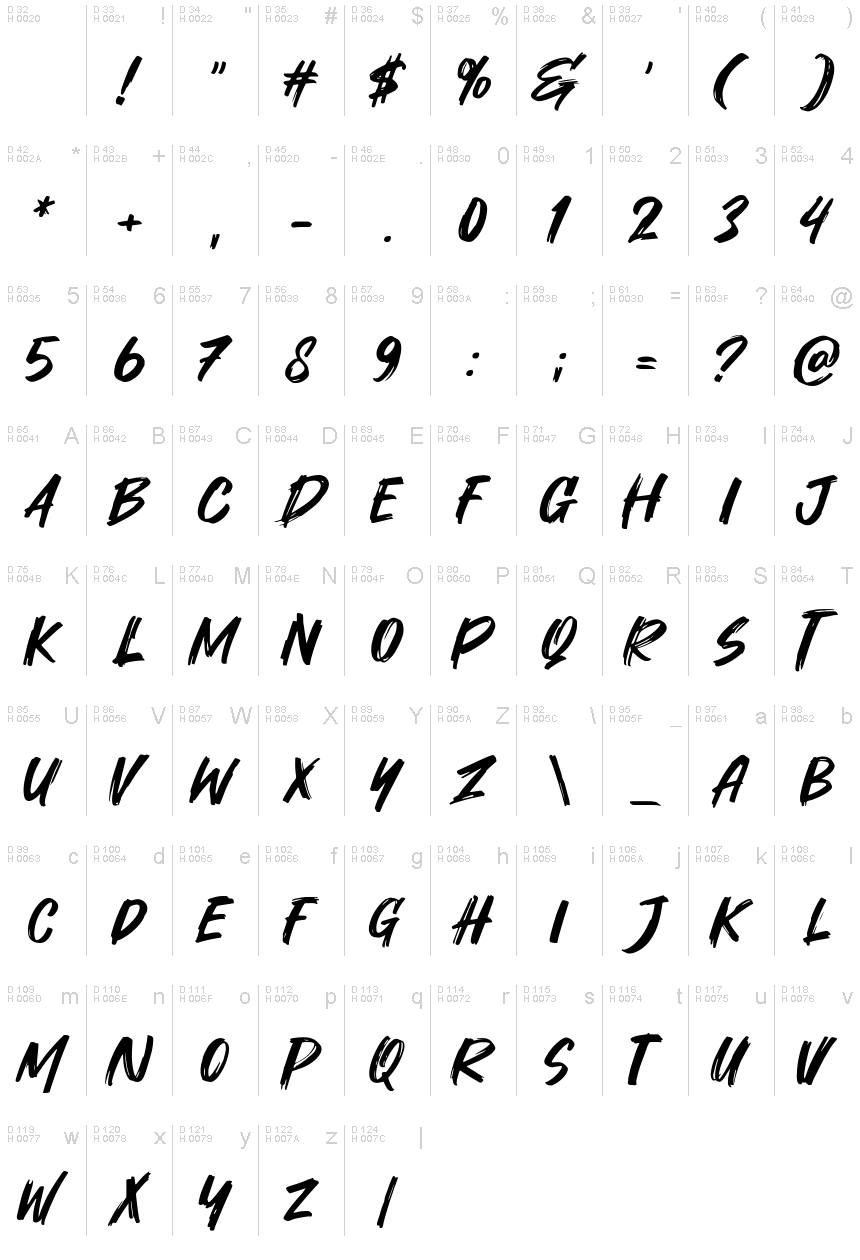
Trushdex
Trushdex is a captivating brush font that exudes raw energy and artistic flair. Its bold, dynamic strokes convey a sense of movement and spontaneity, lending an expressive, handcrafted feel to any design. The uneven, textured lines create a visually striking contrast, lending depth and character to the typeface.
Trushdex's versatility shines through, making it a compelling choice for a wide range of applications - from bold headlines and impactful logos to elegant branding and editorial layouts. Its distinctive personality lends a touch of authenticity and personality to any project, elevating the overall aesthetic and engaging the viewer.